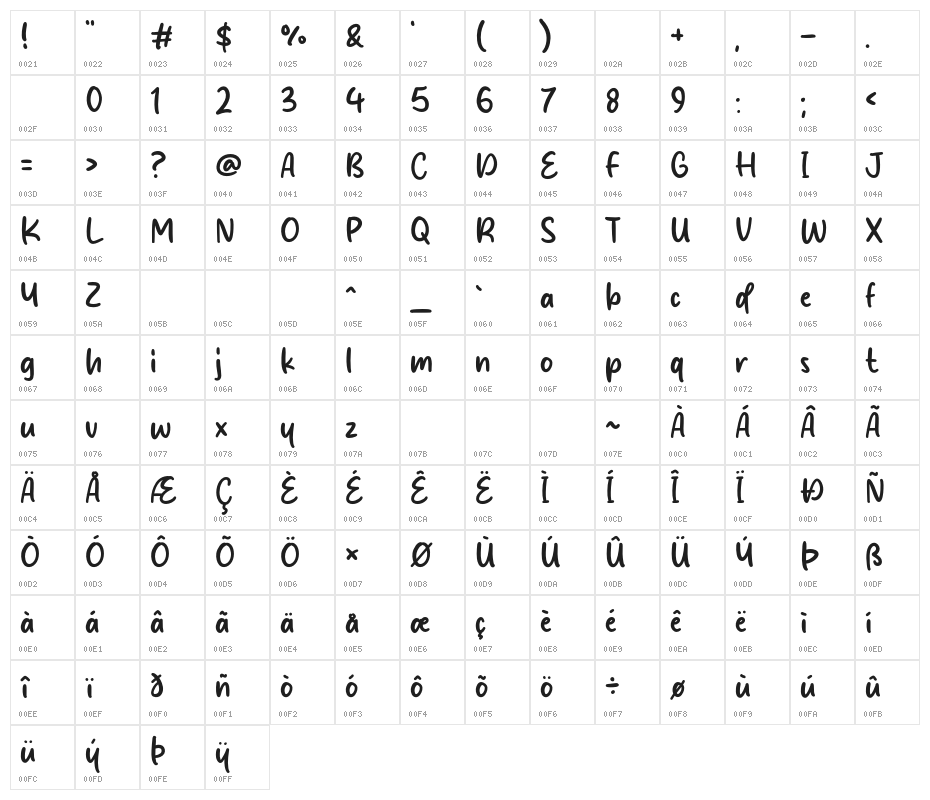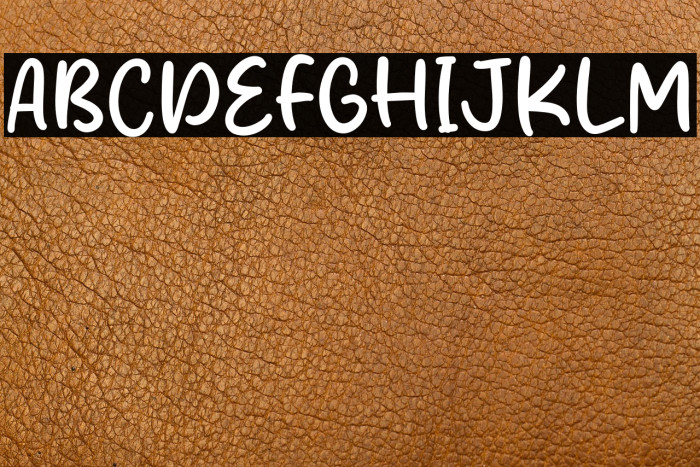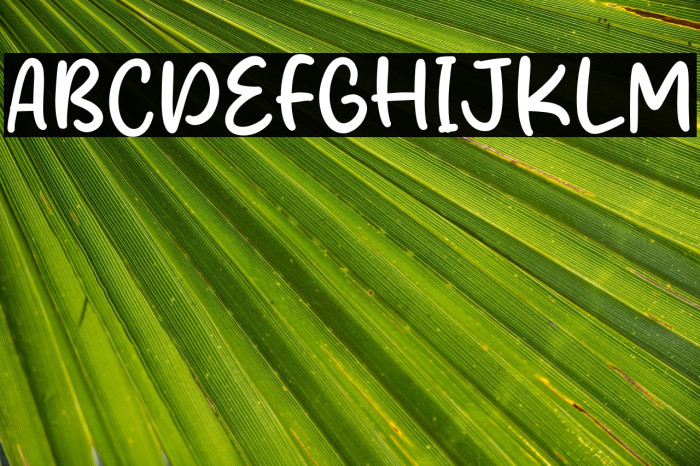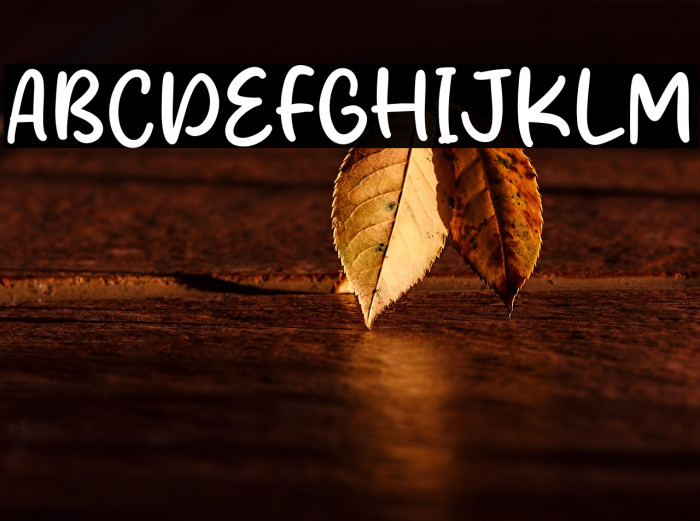
Prince Kaya Font
Prince Kaya Description
This font features a playful and casual handwritten style, characterized by its smooth, rounded edges and consistent stroke width. The letters are slightly tilted, giving a dynamic and lively appearance. The uppercase and lowercase letters maintain a uniform height, enhancing readability while preserving a whimsical charm. Numbers and special characters are designed with the same playful aesthetic, ensuring a cohesive look across all text elements. The overall design is approachable and friendly, making it suitable for a variety of informal applications.
| Use Case | Headlines, Logos, Informal text |
| Proposed Projects | Ideal for children's books, greeting cards, playful branding, and casual invitations. |